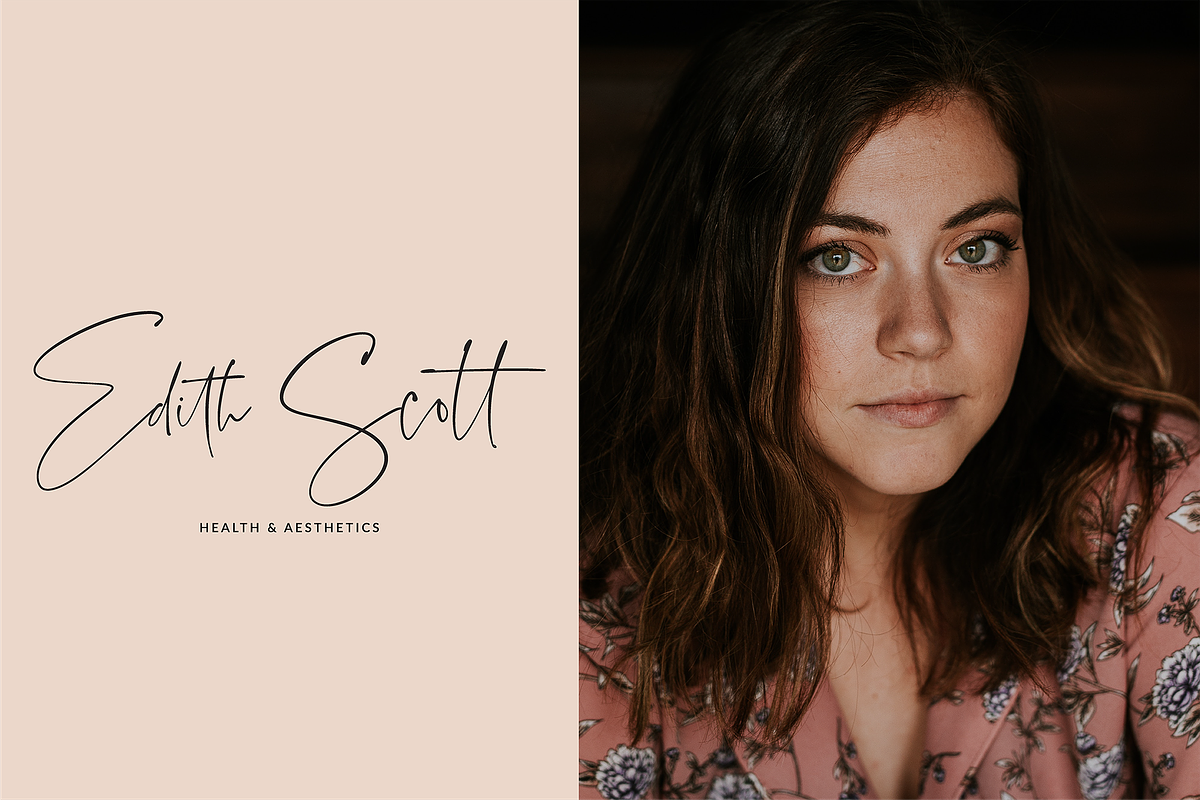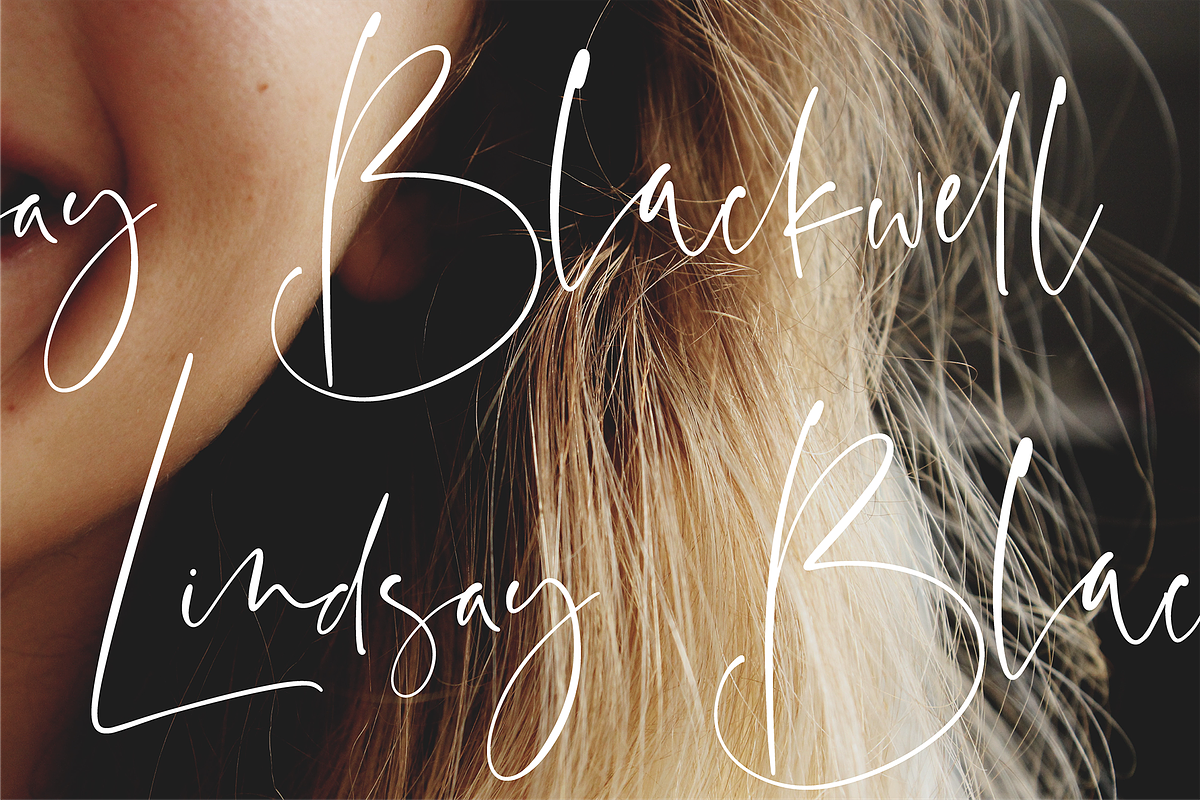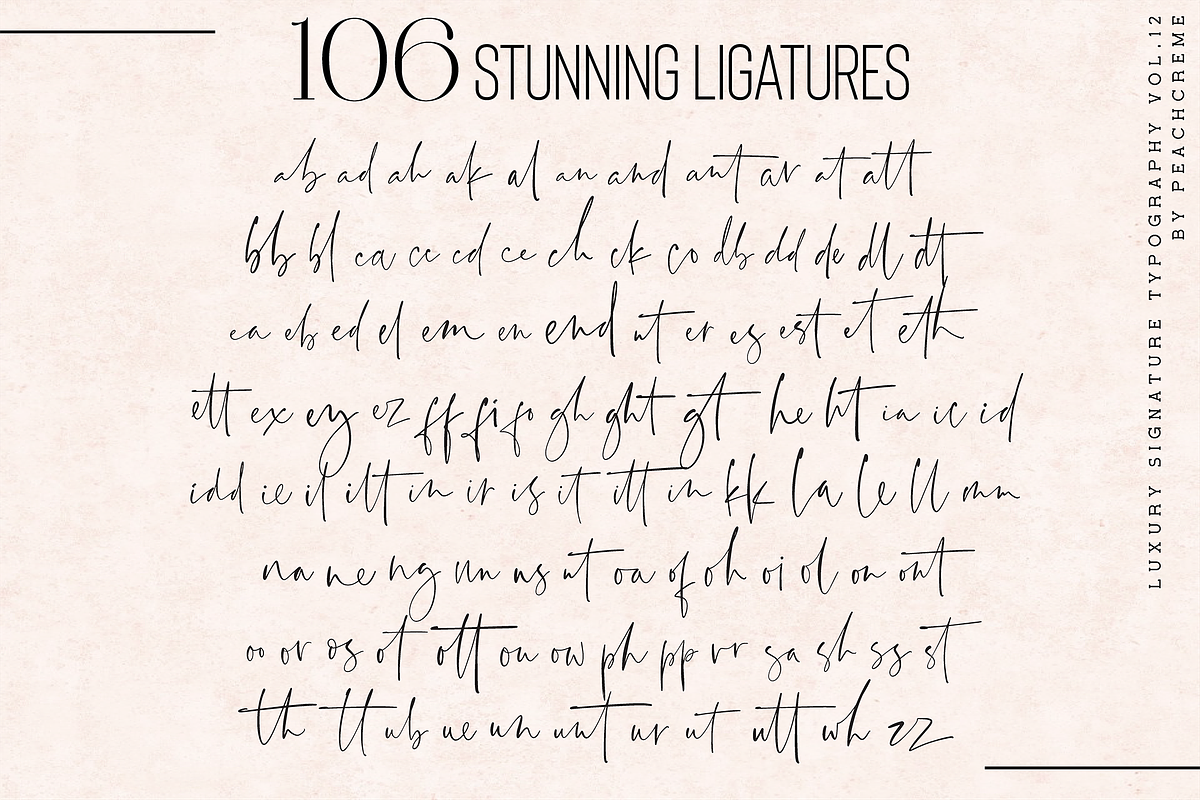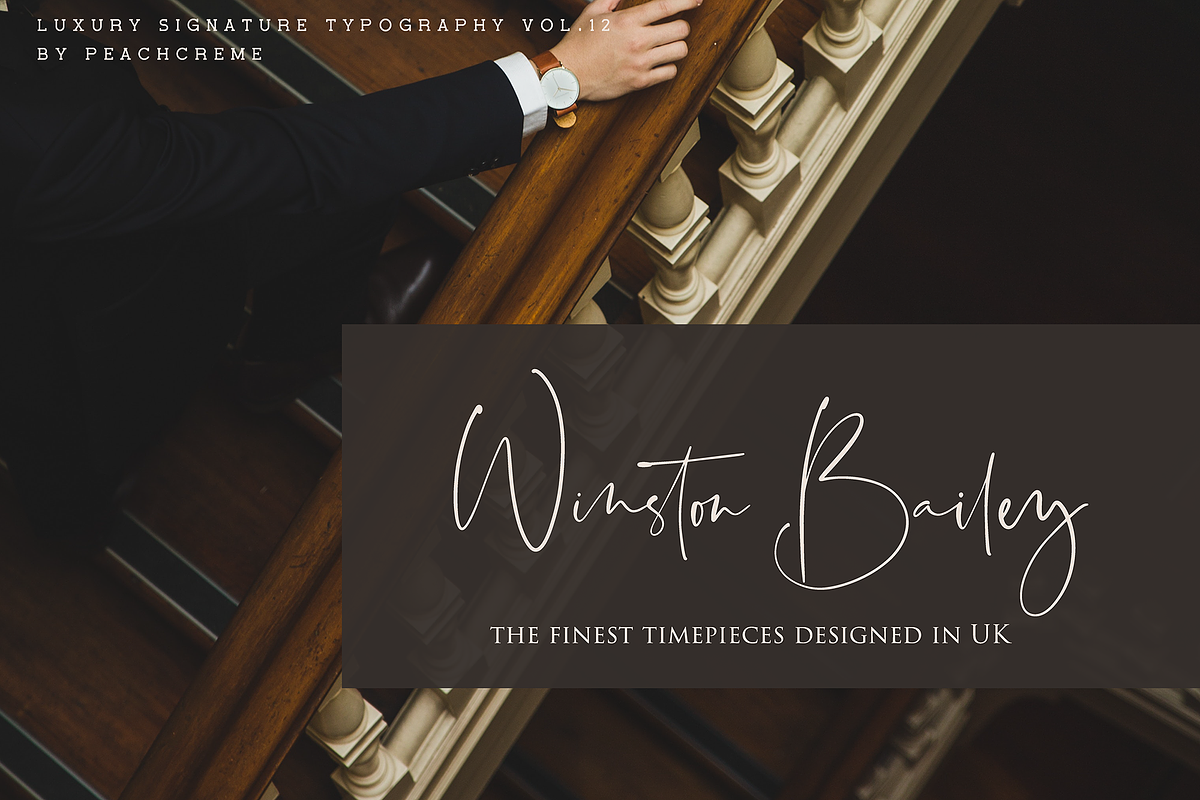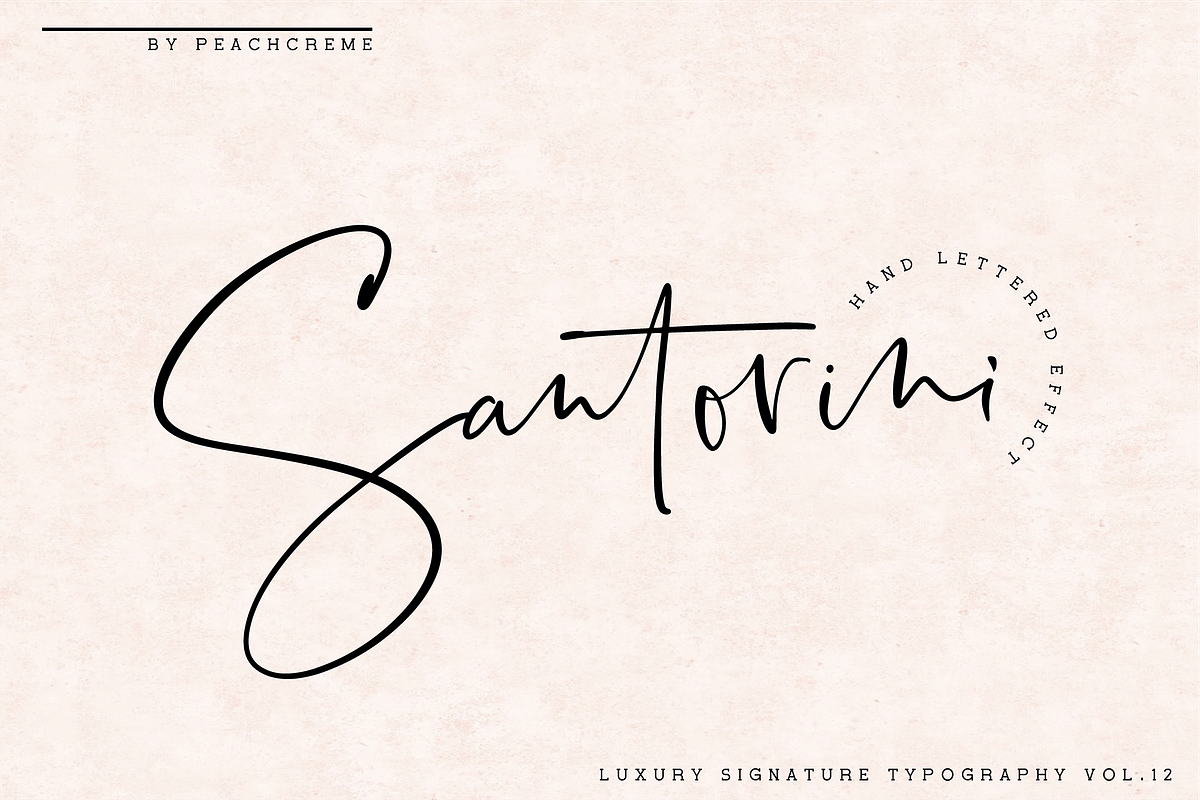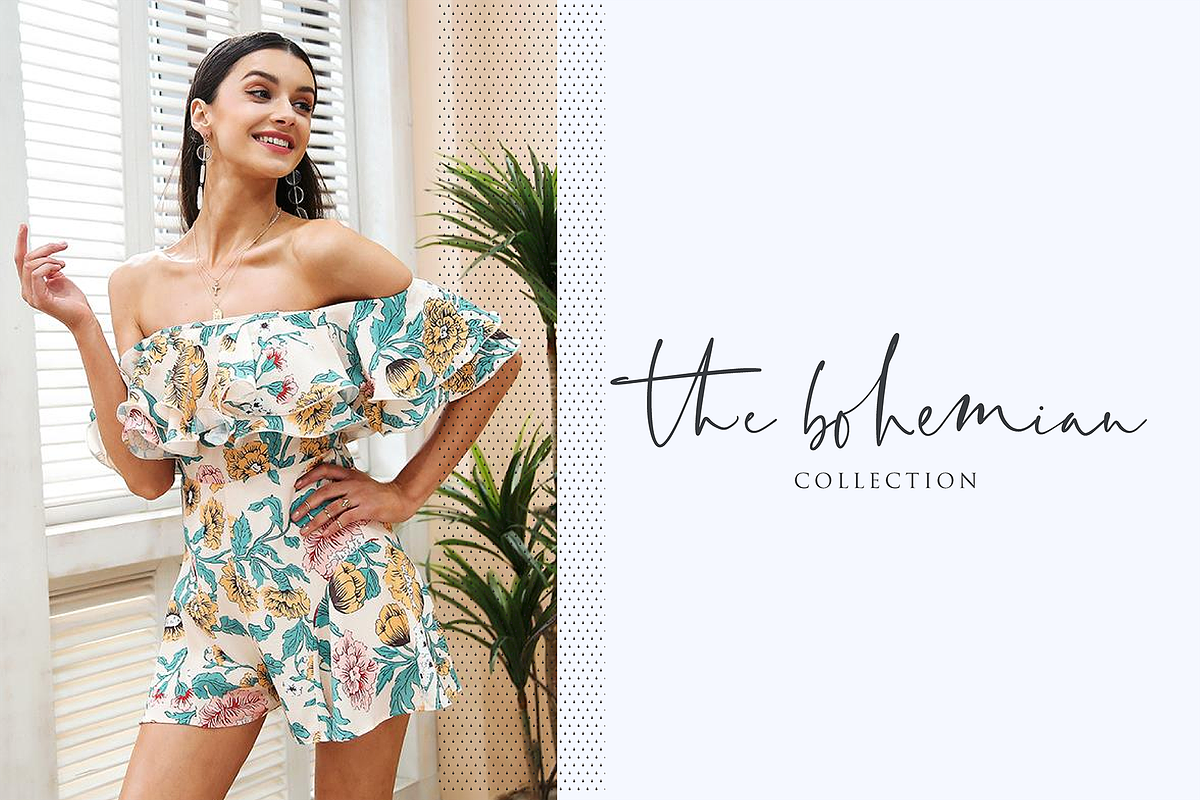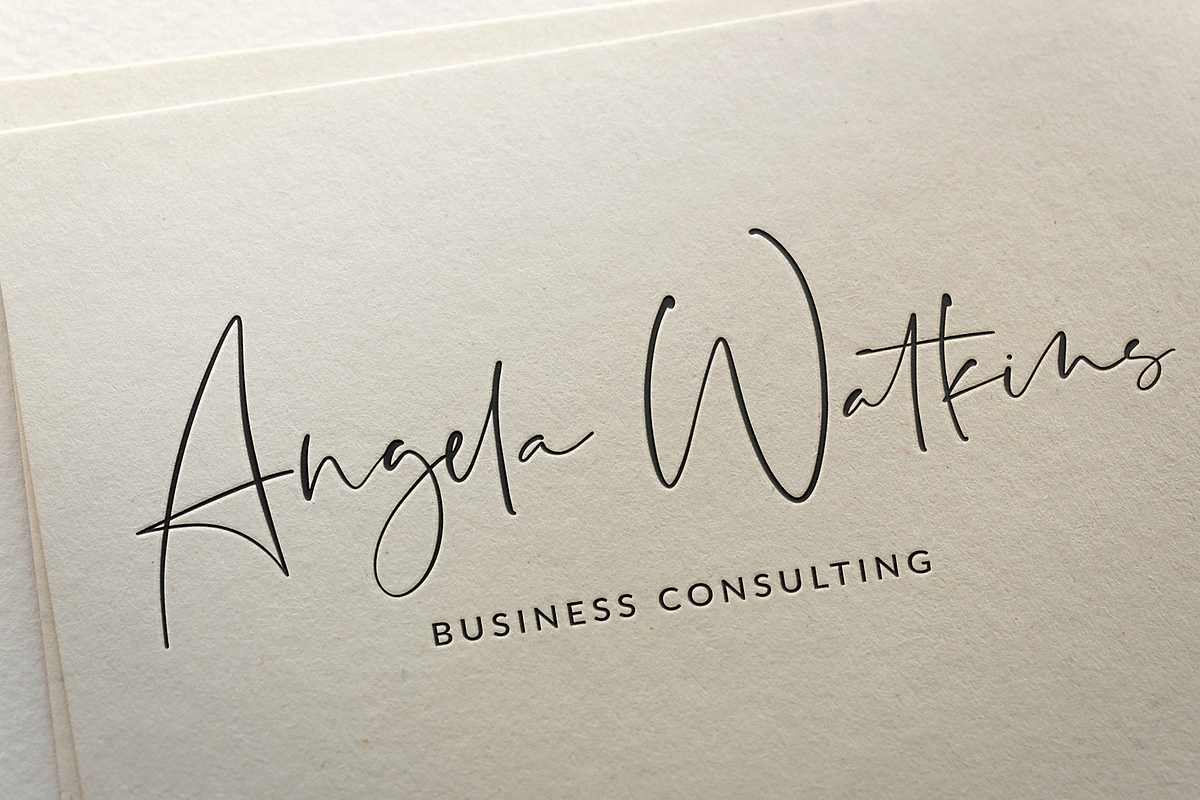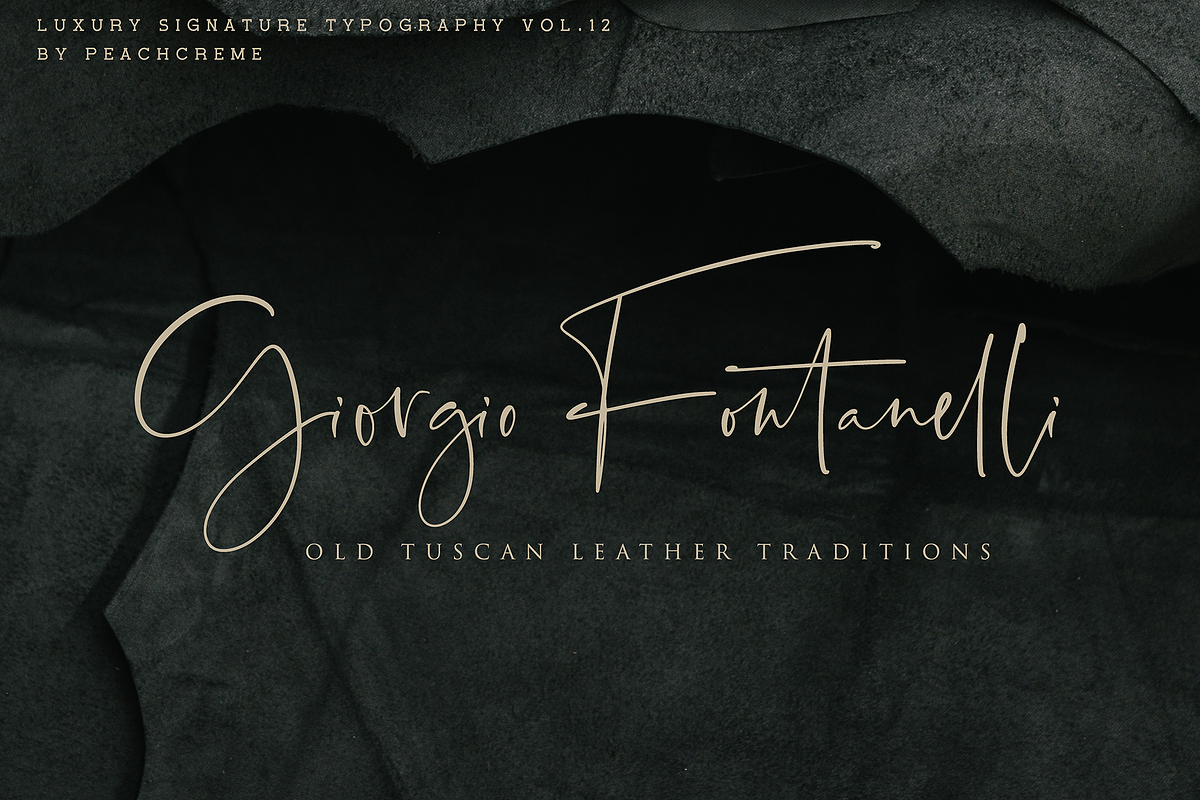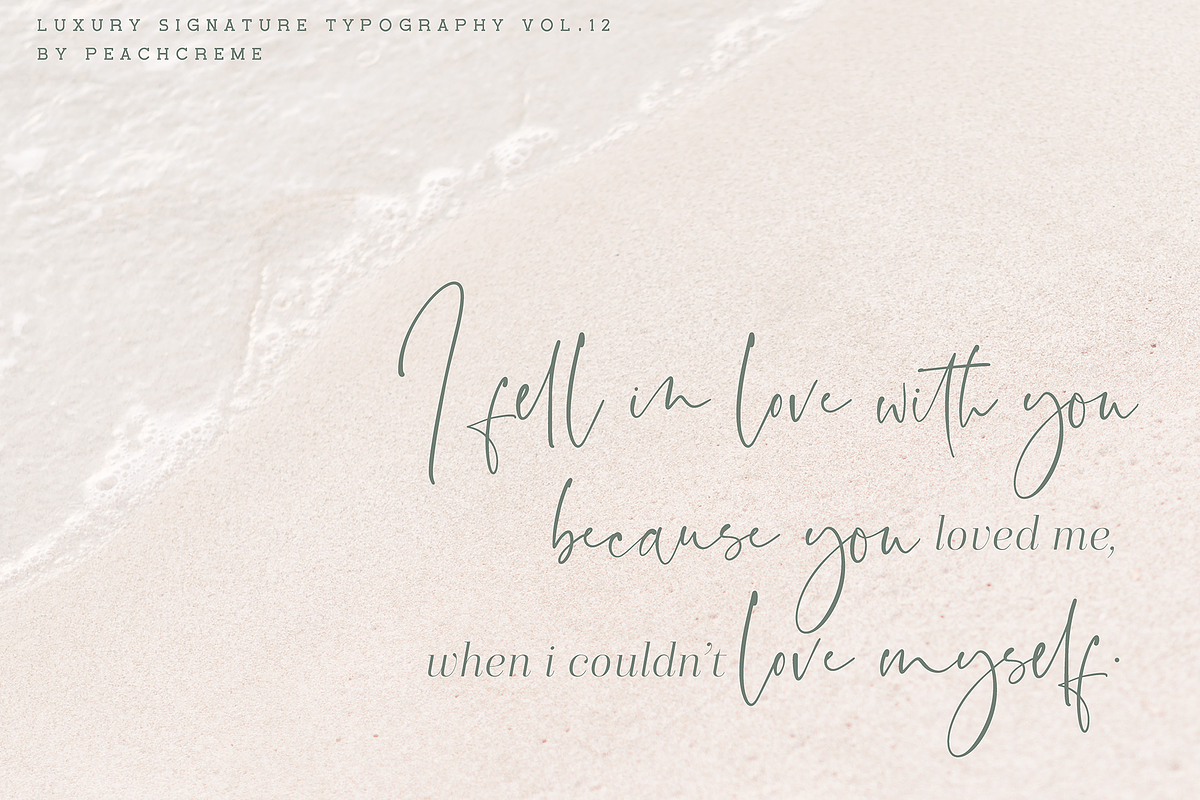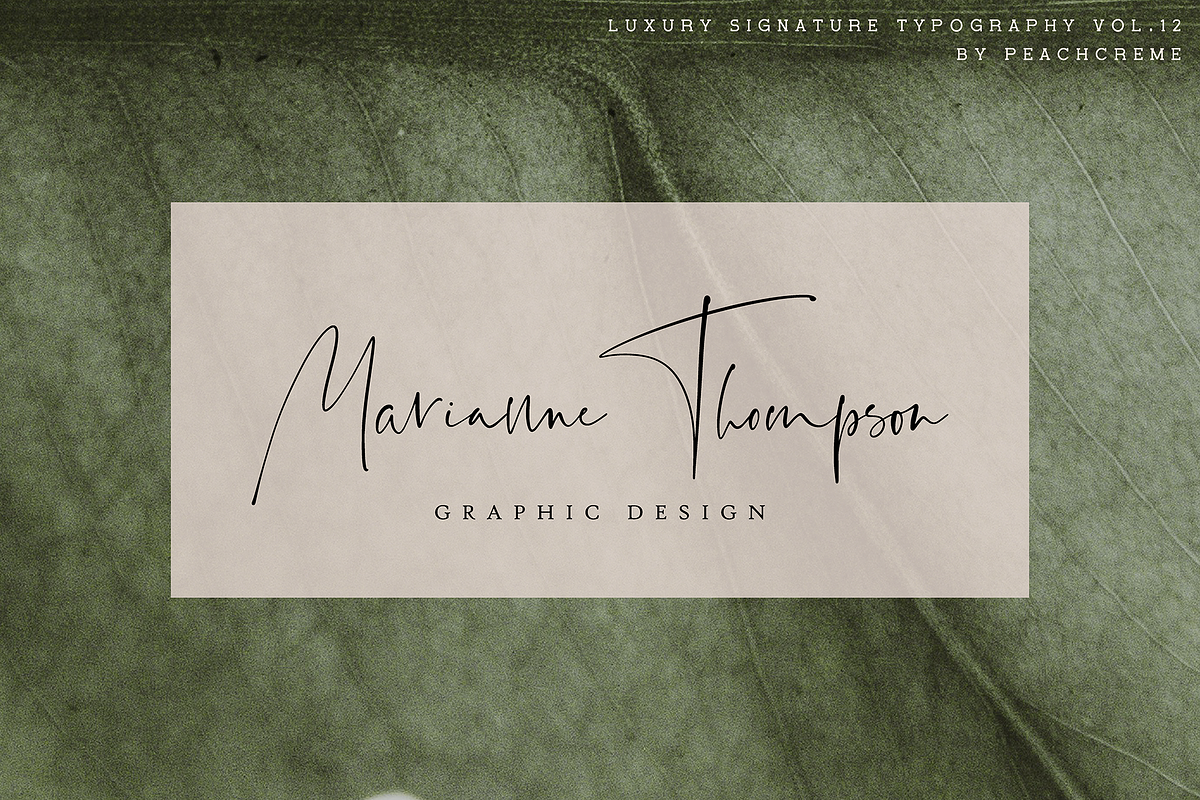
Santorini // Luxury Signature Font
LUXURY SIGNATURE TYPOGRAPHY VOL.12
Say Χαίρετε to this island-inspired Signature font Santorini.
I had this project in my mind long time ago. As a graphic designer, who worked/works a lot on creating branding, we often are requested to design a logo in Signature style, but with the vibe of real hand lettering. So, this font is an embodiment of this idea. This is perfect for BRANDING. Maybe nothing else, but for BRANDING. You won't get cute, whimsical, funny logos with this font.
Only high-end, upscale, sophisticated Branding Design.
To keep maximum real hand lettered effect, there were created 106 ligatures(you can see them among presentation pictures).When creating the font, we should take into consideration that each letter should be able to be connected with other letters. For example, letter "a" should be well connected as well as with "l" and "n" and with any other letters. This limits us: we have to start letter from exact one point and finish in exact second point. So here come ligatures. Santorini font contains following ligatures:
ab ad ah ak al an and ant ar at att bb bl ca cc cd ce ch ck co db dd de dl dt ea eb ed el em en end nt er es est et eth ett ex ey ez ff fi fo gh ght gt he ht ia ic id idd ie il ilt in ir is it itt in kk la le ll mm na ne ng nn ns nt oa of oh oi ol on ont oo or os ot ott ou ow ph pp rr sa sh ss st th tt ub ue un unt ur ut utt wh zz
Santorini also includes full set of uppercase and lowercase letters, multilingual symbols, numerals, punctuation. The font has smooth wet ink texture, so would be perfect for all types of printing techniques+you can do embroidery, laser cut, gold foil etc.